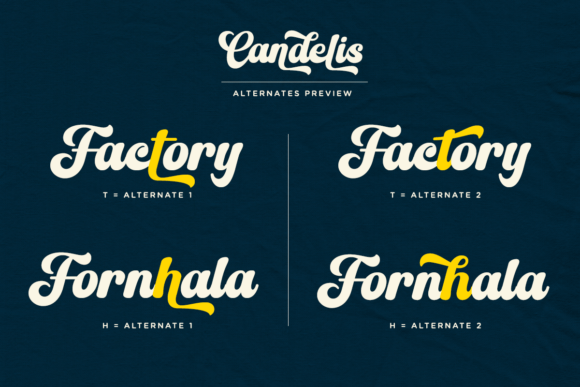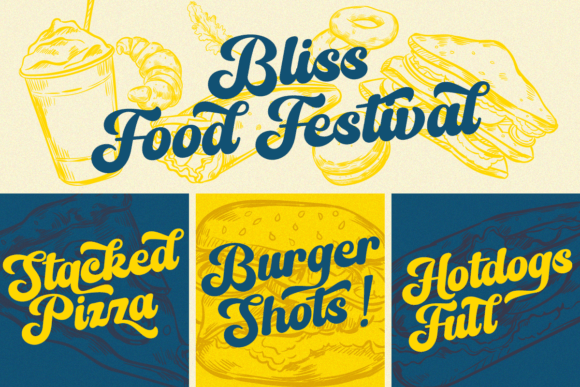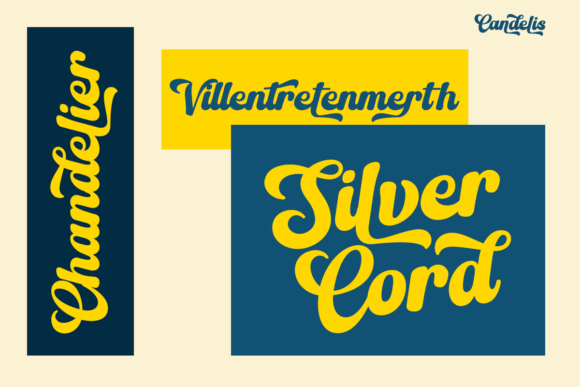
Candelis Font
Candelis is an elegant and bold script font. Fall in love with its incredibly versatile style and use it to create gorgeous wedding invitations, beautiful stationary art, eye-catching social media posts, and much more!